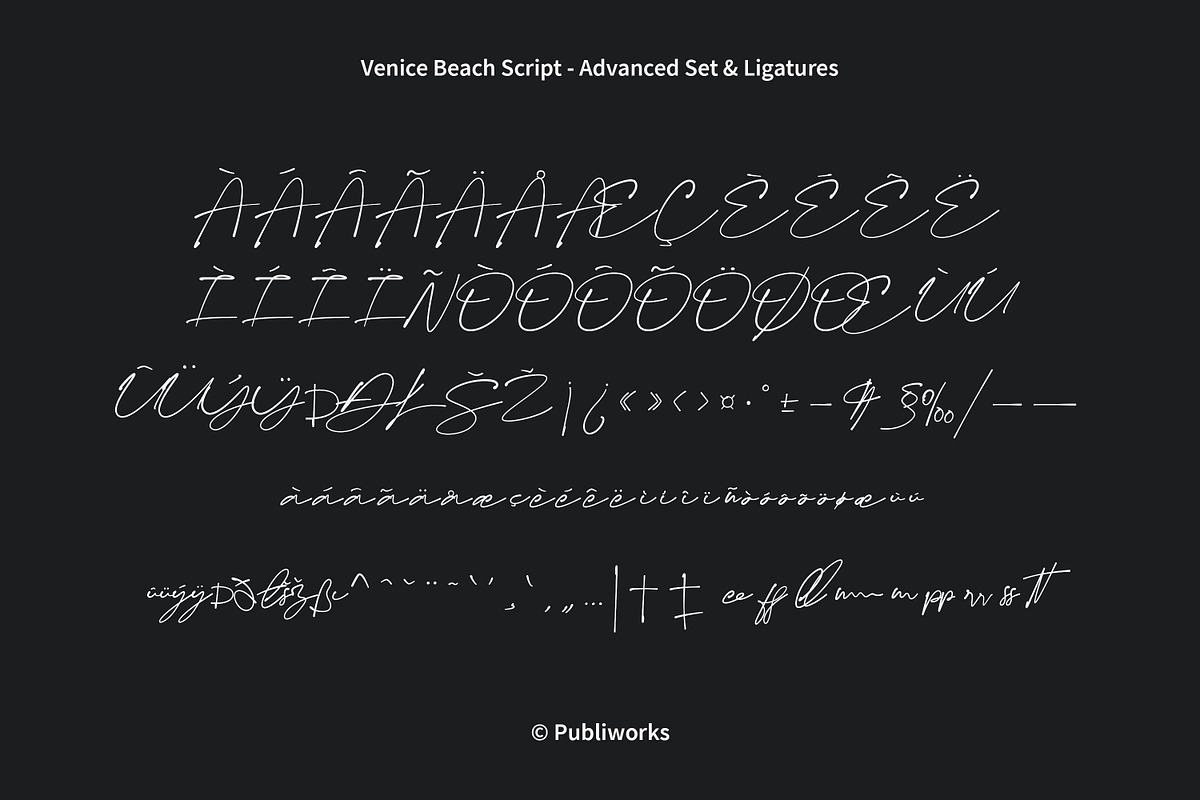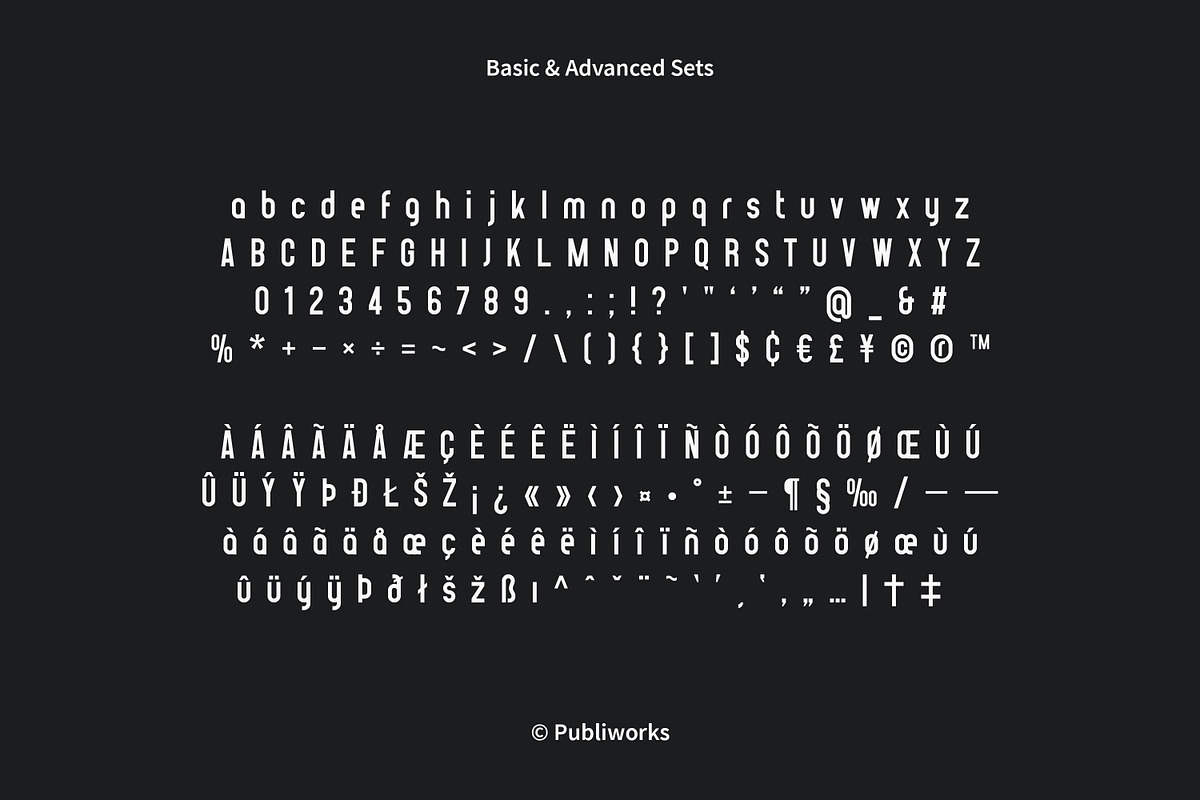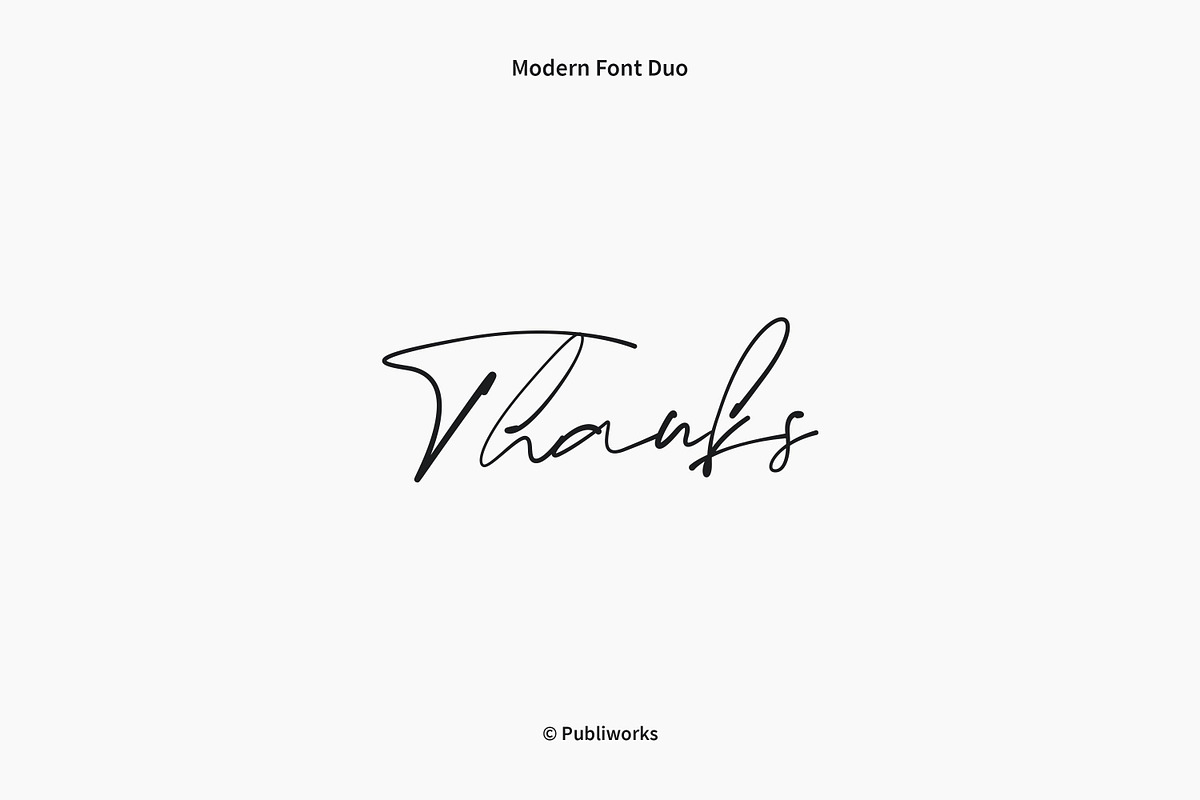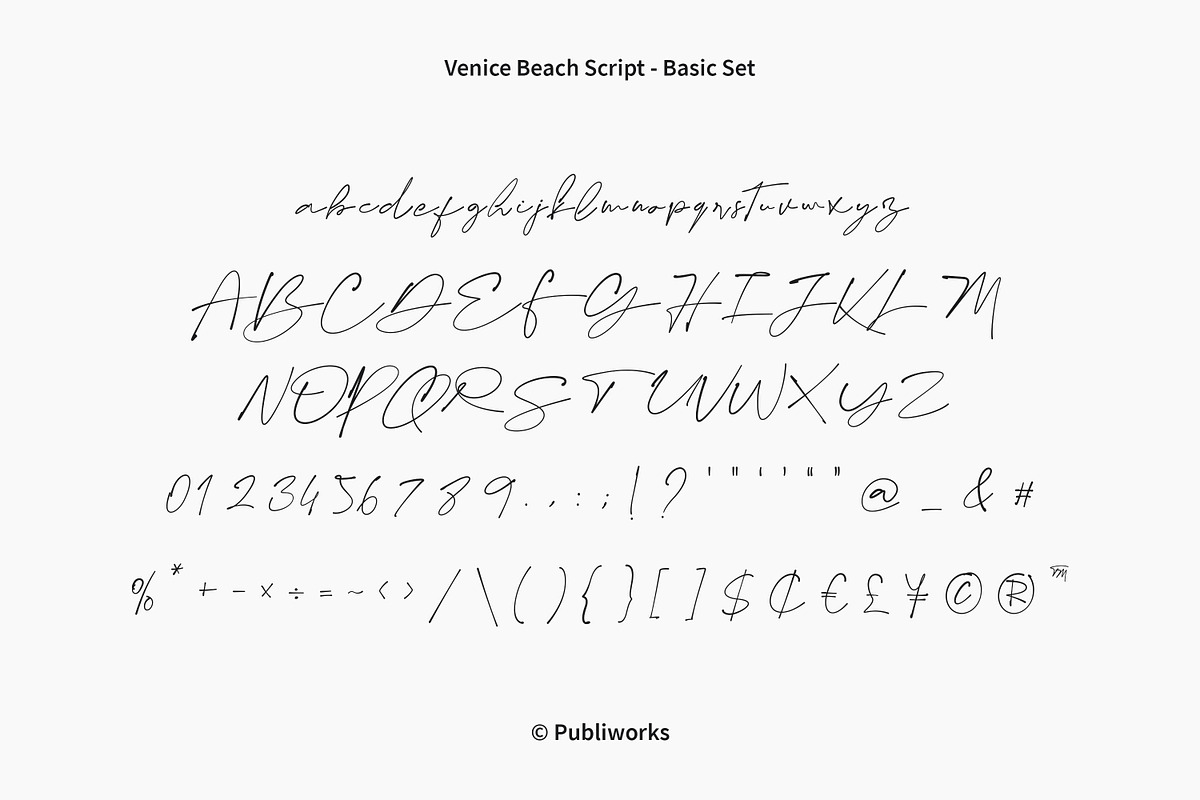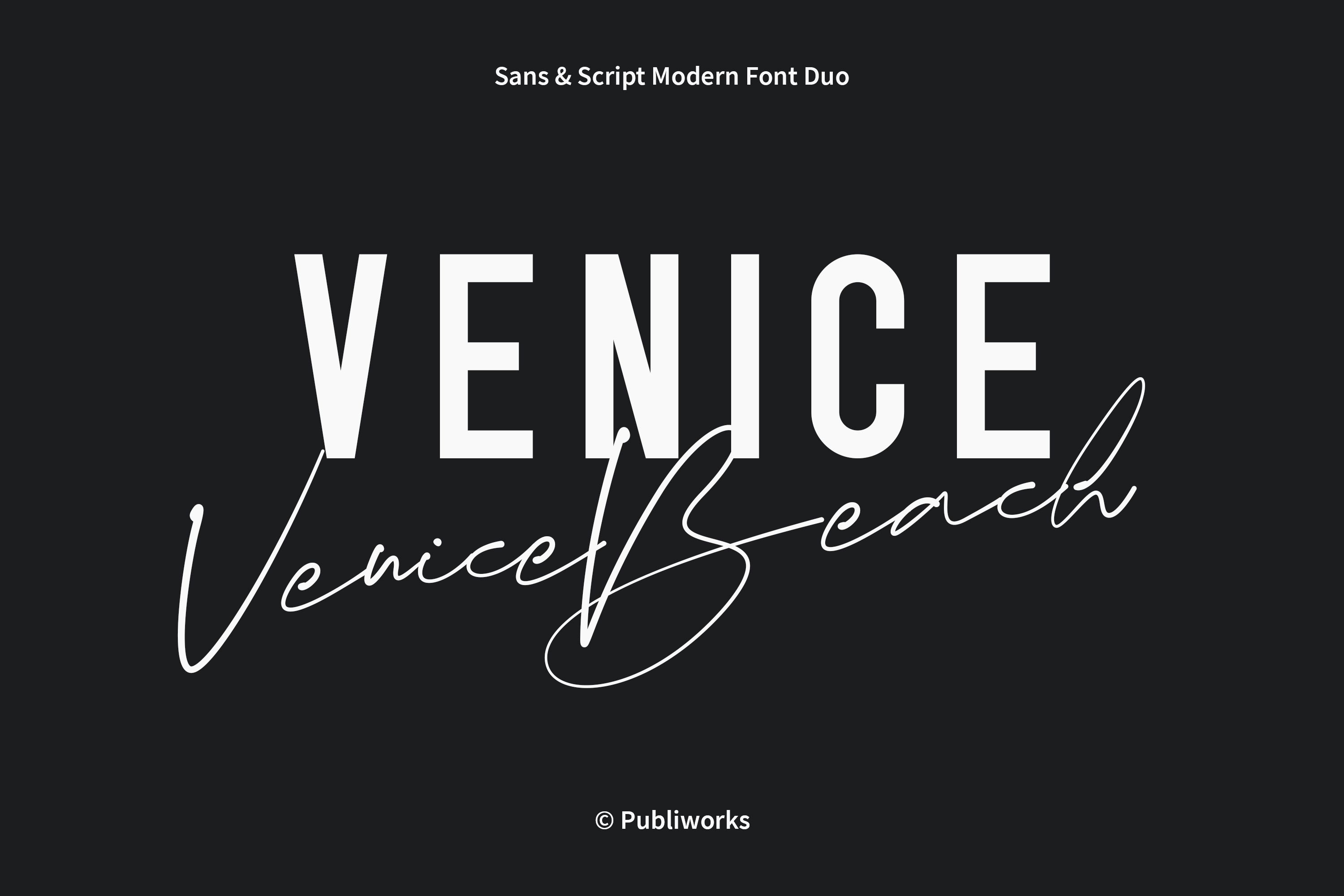
Venice Beach - Modern Font Duo
Venice Beach - Sans & Script Modern Font Duo
- 3 Styles (Script, Sans, Outline)
- 209 Characters by Font (Basic & Advanced Sets)
- 9 Ligatures (Venice Beach Script)
- Lowercase & Uppercase
- Pro Kerning